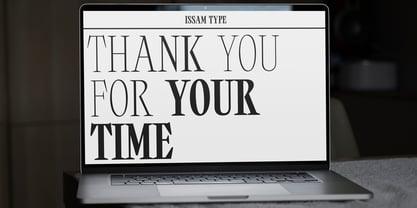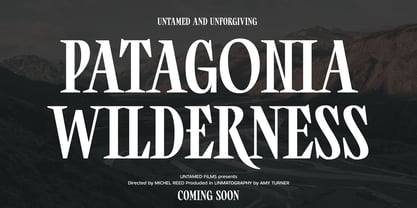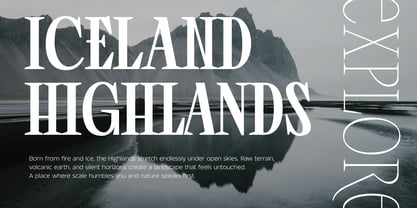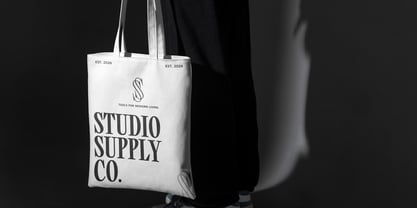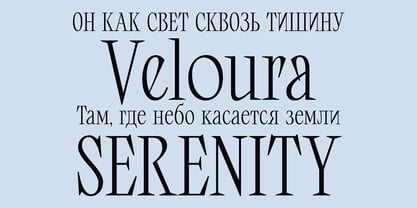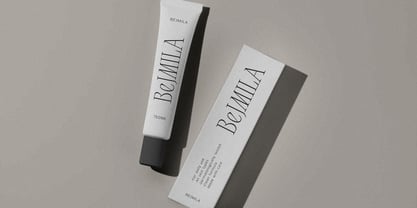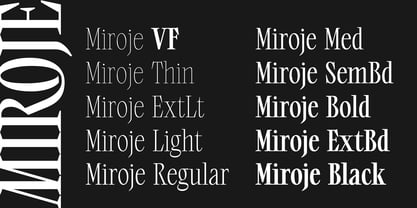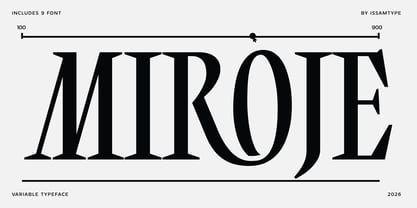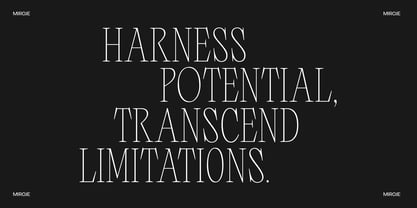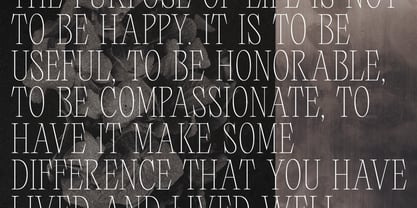
Miroje
by Issam Type
The Miroje Font Family was designed by Issam Boufelja and published by Issam Type. Miroje contains 10 styles and family package options. More about this family
Miroje – A sophisticated variable serif built on dramatic contrast and razor-sharp elegance. Its refined proportions and distinct character allow it to transition seamlessly from the airiest hairlines to the boldest, most striking display forms. Ideal for luxury branding, high-end editorial, and cinematic projects, Miroje combines dramatic flair with a polished contemporary style. If you have any questions or need assistance, feel free to reach out! Thank you.